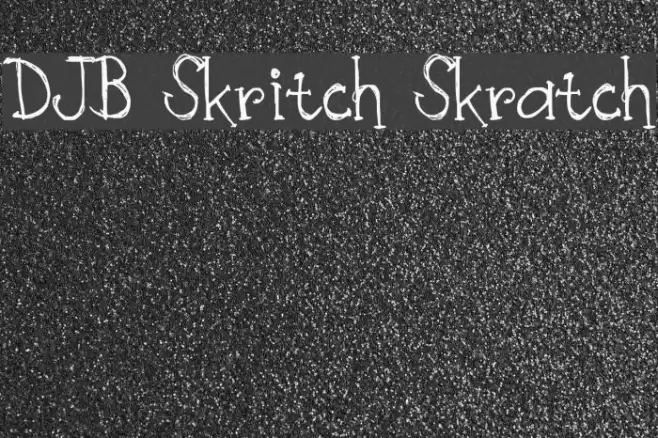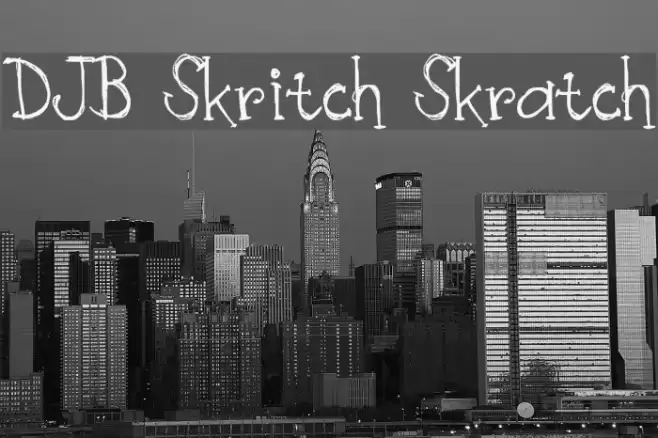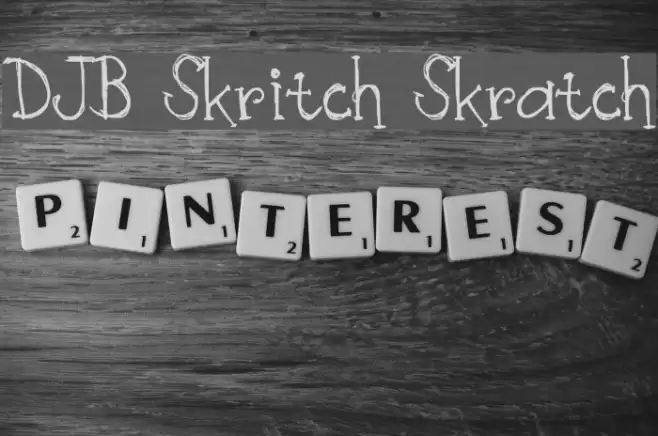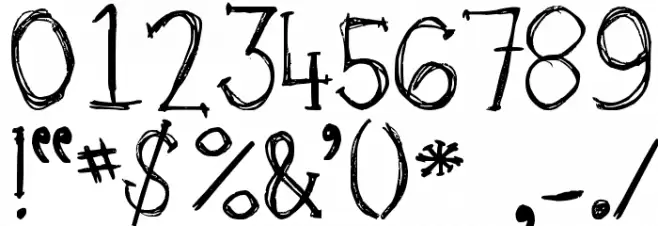
DJB Skritch Skratch Font
DJB Skritch Skratch Description
This font exudes a playful and whimsical charm, characterized by its hand-drawn, sketch-like appearance. Each letter is uniquely crafted with uneven strokes and a slightly rough texture, giving it an organic and informal feel. The uppercase and lowercase letters maintain a consistent style, with exaggerated curves and angles that add to its quirky personality. Numbers and special characters follow the same artistic approach, ensuring a cohesive look across all elements. This font is perfect for projects that aim to convey creativity and a personal touch, making it ideal for children's books, casual invitations, or artistic branding.
A playful, hand-drawn font with a sketch-like, whimsical style from Uncategorized fonts.
- Proposed Projects: Children's books, casual invitations, artistic branding, creative posters.
- Use Case: Headlines, Artistic projects, Informal text.